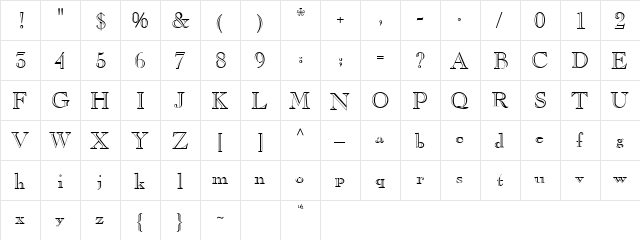
CharlesOpen Thin Font Preview
CharlesOpen Thin
Design Context for CharlesOpen Typeface
CharlesOpen is a composed and adaptable typeface that performs quietly and consistently across a wide range of design contexts. The delicate stroke weight brings airiness and refinement to layouts.